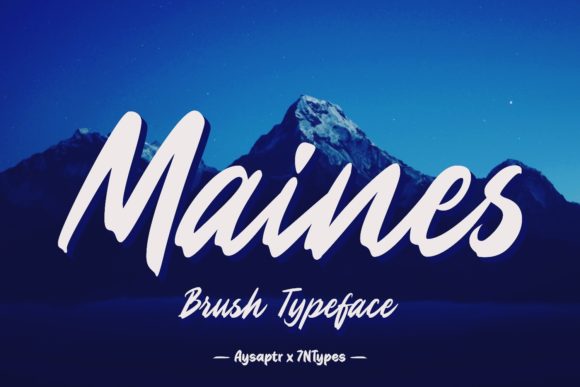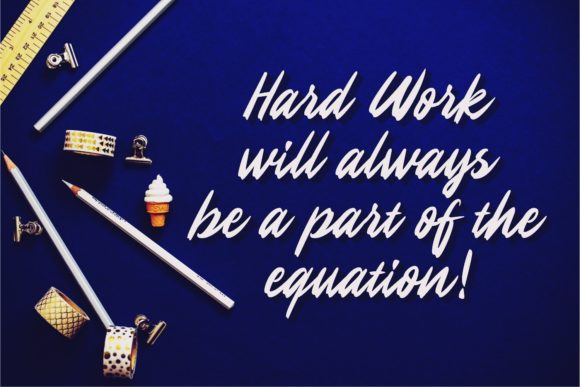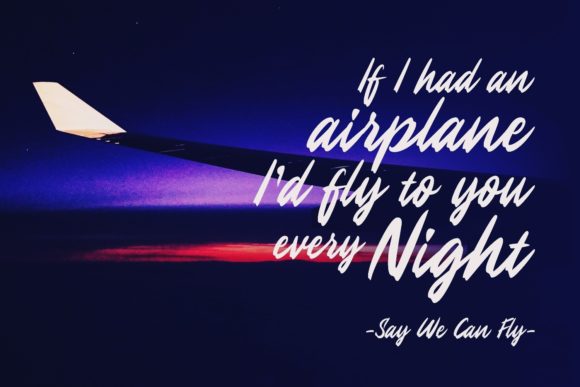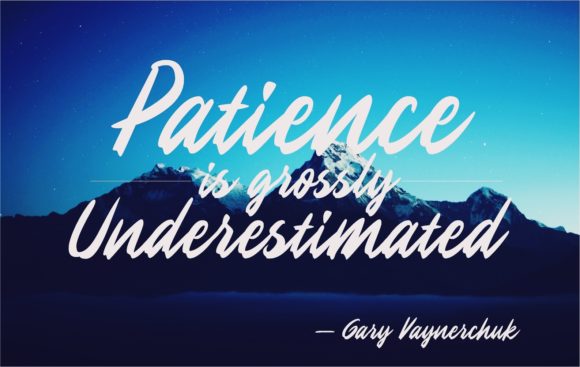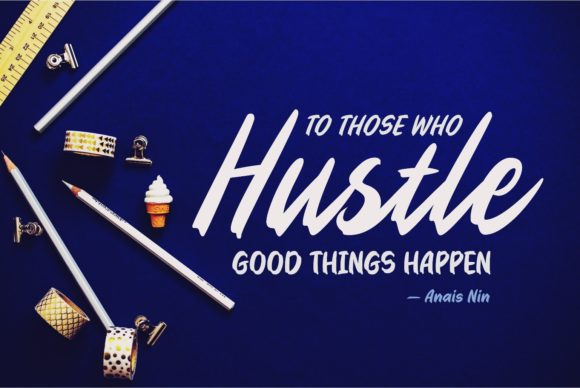
HomeScript FontsMaines Font Script Fonts Maines Font FacebookXPinterestWhatsApp Maines Font Poster 2 Maines Font Poster 3 Maines Font Poster 4 Maines Font Poster 5 About Maines Font Maines is a sweet and simple script with a vintage look. Get inspired by its authentic charm. DOWNLOAD NOW People also explored Patient Font Kristaly Font Multicolored Font Menoewa Font Happy Mothers Day Font Athya Lovean Font Flower Child Font Bella Riosa Font Sundarta Font 282 0 TagsMaines Font Previous articleArrthur FontNext articleSachie Font LEAVE A REPLY Cancel reply Comment: Please enter your comment! Name:* Please enter your name here Email:* You have entered an incorrect email address! Please enter your email address here Website: Save my name, email, and website in this browser for the next time I comment. Personal Use Free Bulky Personal Use Free Read more about this font Mustica Personal Use Free Read more about this font Drip October Font Personal Use Free Read more about this font Brandon Bromley Personal Use Free Read more about this font BLOG The 10 Best Handwriting Fonts to Add Personality to Your Designs 10 of the Best Handwriting Fonts for Adding Personality to Your Designs There will undoubtedly be no other better choice than handwriting fonts to give... Best Fonts for T-Shirt Design – Top 2025 Picks Transform Your Website: Elevate Your Typography with 7 Best Web Font Generators How to Cut Any Font on Cricut: Convert a Font to SVG (Free)